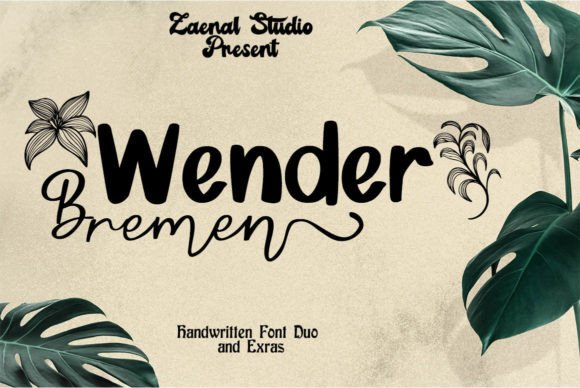
Journey into the realm of elegance and creativity with Wender Bremen Duo Font, a handpicked masterpiece that will transform your designs into breathtaking works of art. This mesmerizing font duo, meticulously crafted by the talented Zaenal Studio, embodies the essence of sophistication and charm, making it the perfect choice for those seeking to elevate their projects to new heights.
Wender Bremen Duo Font is a harmonious blend of classic script and modern flair, effortlessly capturing the essence of timeless beauty while embracing a contemporary edge. Its graceful curves and delicate strokes exude an air of sophistication that will add a touch of luxury to any project. The meticulous attention to detail in each letterform ensures that your designs radiate elegance and professionalism, leaving a lasting impression on your audience.
Step into a world where creativity knows no bounds, where every letter is a stroke of genius, and every word a symphony of charm. Wender Bremen Duo Font opens up endless possibilities for expression, allowing you to craft designs that captivate and inspire. Whether you're creating logos, branding materials, invitations, or social media graphics, this font duo will elevate your work to exceptional heights.
With Wender Bremen Duo Font, you'll experience the joy of effortless creativity. Its intuitive design and user-friendly features make it a breeze to use, even for beginners. Unleash your imagination and explore the myriad ways in which this font duo can transform your projects into masterpieces.
Explore the boundless versatility of Wender Bremen Duo Font and discover its suitability for a wide range of projects. Its timeless appeal makes it an ideal choice for fashion and apparel designs, adding a touch of elegance to clothing, accessories, and branding materials. Its versatility extends to wedding invitations, greeting cards, and other special occasion designs, where its romantic charm will leave a lasting impression on your loved ones.
Wender Bremen Duo Font is more than just a font; it's an invitation to embark on a creative journey where your imagination takes center stage. Its unique combination of classicism and modernity creates a captivating visual experience that will leave your audience spellbound. As you explore the endless possibilities that await you, you'll discover a font duo that truly ignites your creative spirit and sets your designs apart from the ordinary.